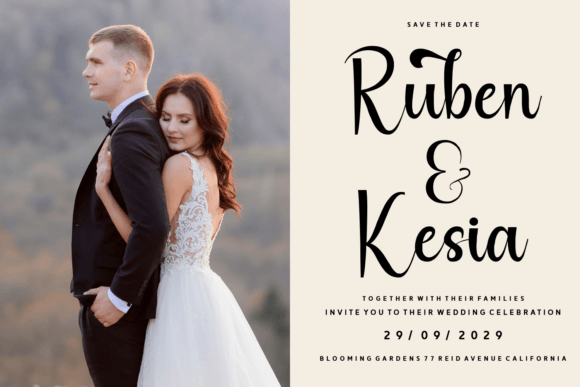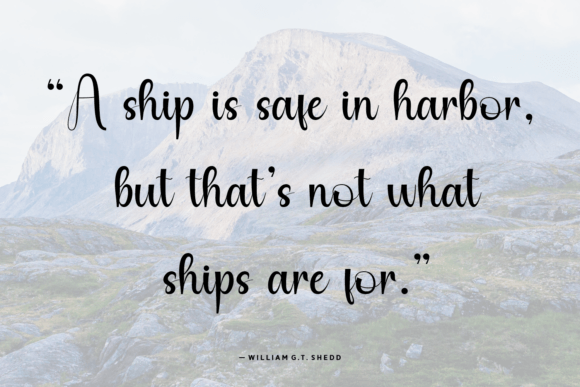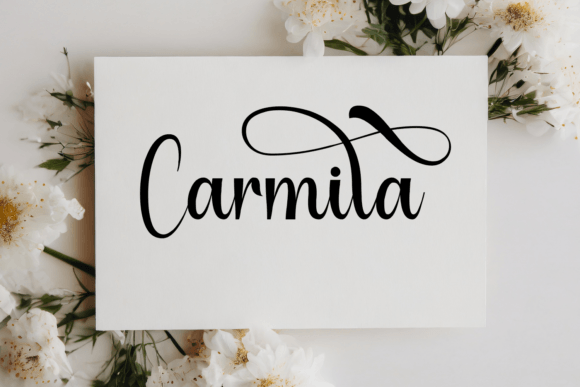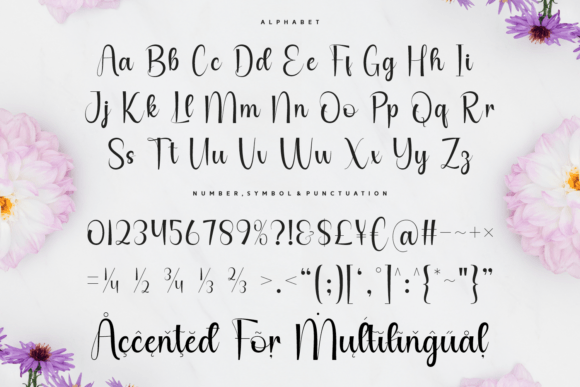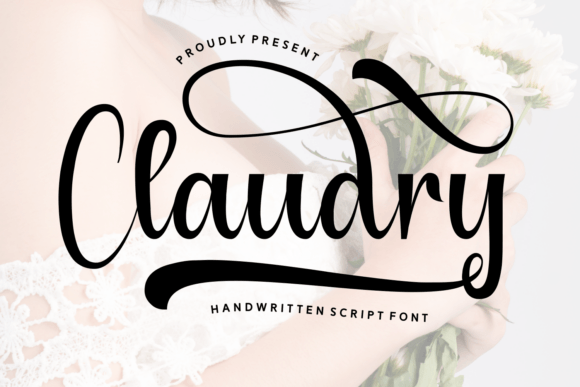
Introducing Claudry Font: Elevate Your Designs with Elegance and Sophistication
In the world of typography, few fonts manage to convey elegance and sophistication as effortlessly as Claudry. This beautiful, handwritten script font is designed to bring a touch of luxury to your designs, making it perfect for a variety of creative projects. From wedding invitations and branding to stylish packaging, Claudry’s bold yet graceful strokes are sure to leave a lasting impression.
The Characteristics of Claudry Font
Claudry is distinguished by its flowing lines and delicate swashes, which add a personal, romantic touch to every creative idea. Its elegant strokes are both bold and refined, making it a versatile font that can be used in a multitude of design contexts. Whether you’re looking to create a sophisticated brand identity or a stunning wedding invitation, Claudry provides the perfect blend of style and charm.
Key Features of Claudry Font
- Elegant Handwritten Script: Claudry boasts a beautiful, handwritten script that adds a touch of elegance to any design.
- Bold yet Graceful Strokes: The font’s bold strokes are balanced by a graceful fluidity, making it both eye-catching and refined.
- Flowing Lines and Delicate Swashes: Claudry’s flowing lines and delicate swashes enhance its beauty and make it perfect for designs that require a touch of sophistication.
- Versatile: Suitable for a wide range of projects, including wedding invitations, branding, packaging, and more.
Uses of Claudry Font
Claudry’s versatility makes it an excellent choice for various design projects. Here are some of the best uses for this elegant font:
Wedding Invitations
For wedding invitations, Claudry adds a romantic and sophisticated touch. Its elegant strokes and flowing lines make it perfect for conveying the joy and beauty of a wedding. Whether you’re designing formal or casual wedding invitations, Claudry is sure to impress.
Branding
In branding, Claudry can be used to create a luxurious and refined brand identity. Its unique and elegant appearance makes it stand out from more traditional fonts, allowing brands to establish a distinctive and memorable presence.
Packaging
For packaging projects, Claudry adds a touch of sophistication and style. Its bold yet graceful strokes make it perfect for product labels, packaging inserts, and more. Whether you’re designing packaging for a high-end product or a special edition item, Claudry is an excellent choice.
Tips for Using Claudry Font
To get the most out of Claudry, here are a few tips:
- Pair with Complementary Fonts: Claudry pairs well with clean, sans-serif fonts. Try pairing it with fonts like Helvetica or Arial for a balanced look.
- Use for Headings and Titles: Claudry is perfect for headings and titles, where its elegant strokes can make a significant impact.
- Experiment with Colors: While Claudry looks stunning in traditional black and white, don’t be afraid to experiment with different colors to match your brand or design theme.
Claudry is a beautiful, elegant handwritten script font that brings sophistication and style to any design. Its bold yet graceful strokes, flowing lines, and delicate swashes make it perfect for a variety of creative projects, from wedding invitations and branding to stylish packaging. With its versatility and timeless elegance, Claudry is sure to become a favorite among designers and crafters alike.
Whether you’re looking to add a touch of romance to your wedding invitations, create a luxurious brand identity, or design stylish packaging, Claudry is the perfect choice. Its unique blend of style and charm makes it an excellent addition to any designer’s toolkit.